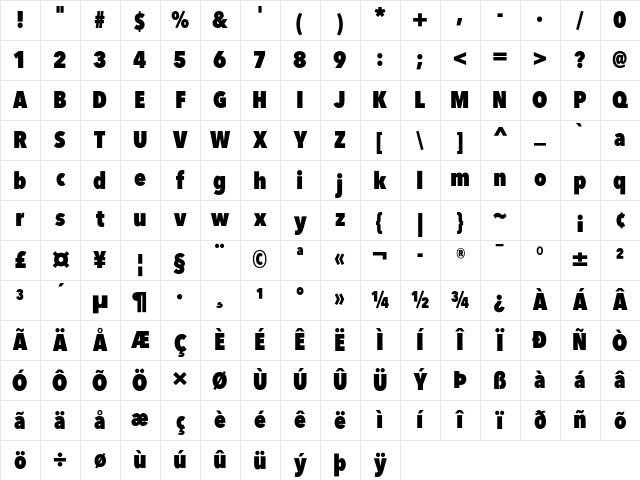
Avenir Next LT Pro Heavy Condensed
Style: Heavy Condensed
Foundry: Linotype Library GmbH
Designer: Adrian Frutiger and Akira Kobayashi
Design Context for Avenir Next LT Pro
Avenir Next LT Pro is a composed and adaptable typeface that performs quietly and consistently across a wide range of design contexts. Its slender proportions lend an understated elegance to any composition. Its narrow stance lets it pack a punch even in space-constrained designs.